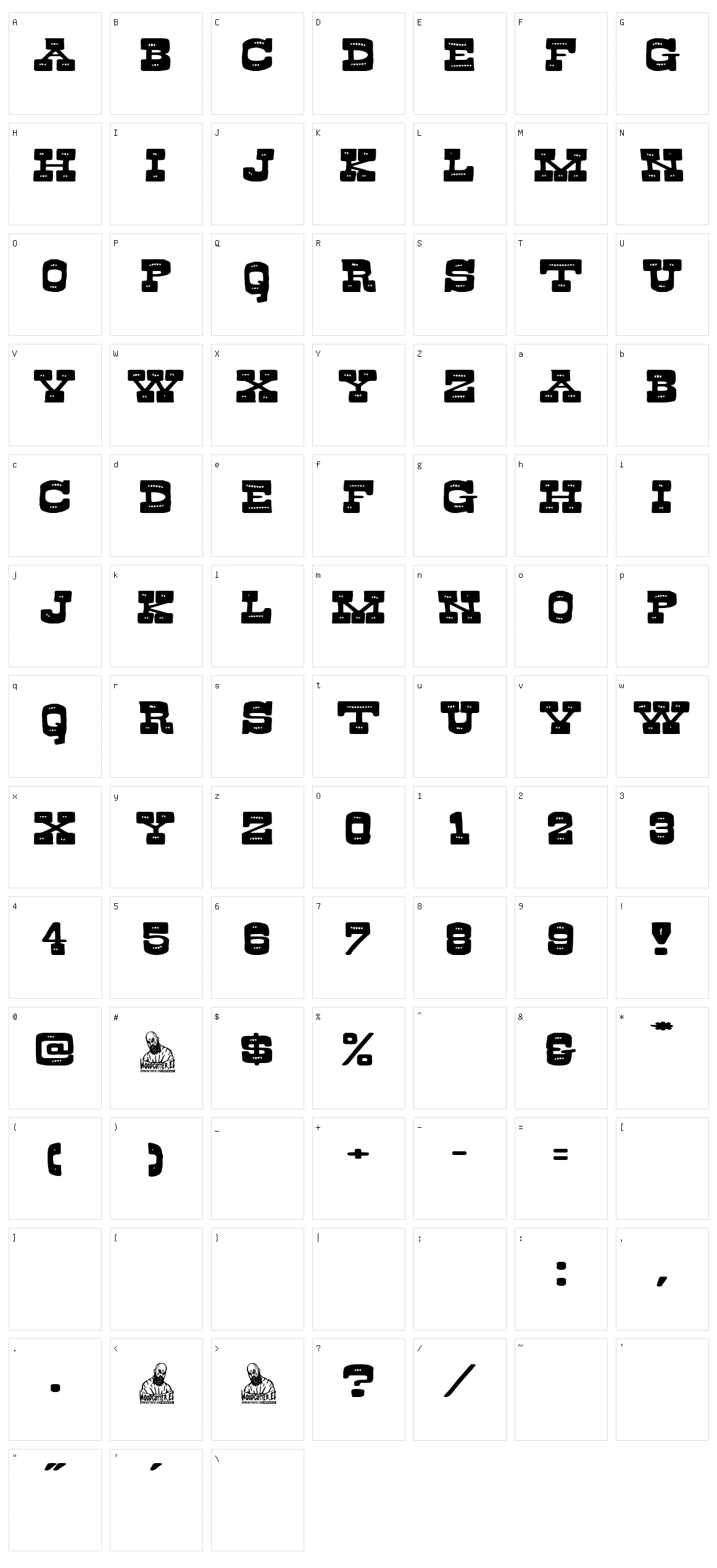
The free font Triple X Days is carefully designed by Woodcutter, showcasing a thoughtful balance of creativity and usability and falls under the Western font style. When you download the ZIP file, it contains only 86.57 KB of font files, making it lightweight and quick to download. Please review the license details below to understand permitted usage and distribution rights. If license information is not available, we recommend using this font for personal projects only or contacting the author directly for commercial usage permissions.